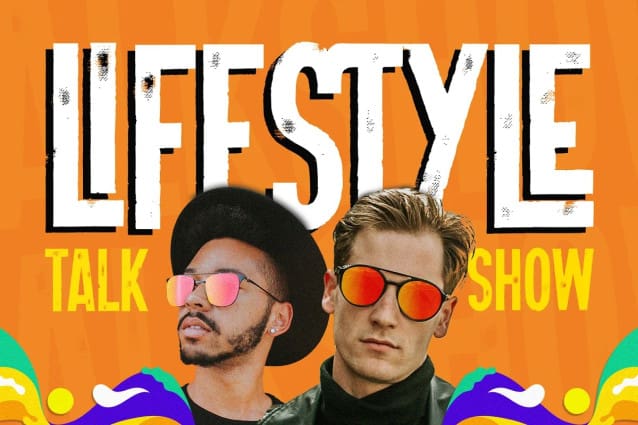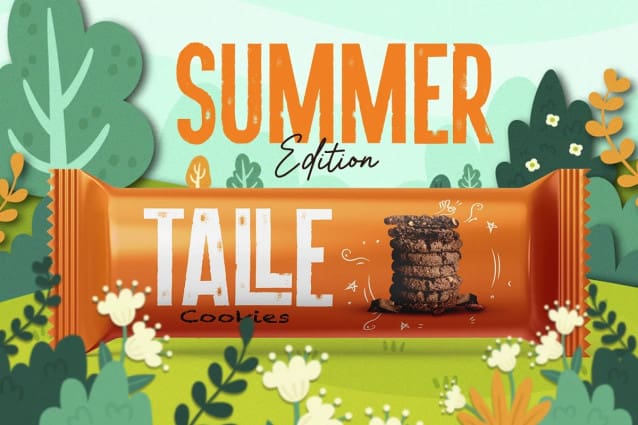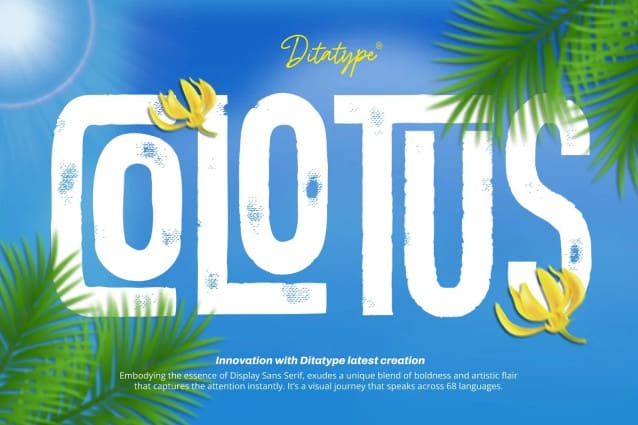
Colotus Display Font
Colotus Display Font, is a striking sans-serif display font that immediately captures the eye. The characters in Colotus is made in bold and solid square forms, imparting a sense of reliability and authority. However, what truly sets Colotus apart is its subtle brush detail that adds a touch of handcrafted charm. This brush detail infuses the font with a sense of artistry, creating a captivating blend of contemporary design and organic creativity.